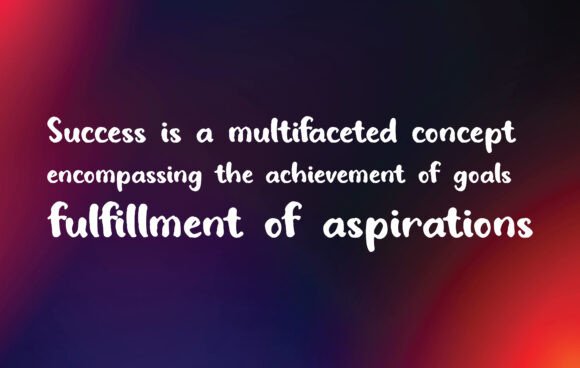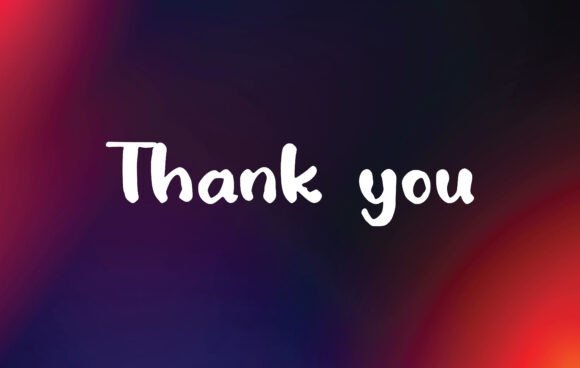
Introducing Daniel Font: Elevate Your Creative Projects with a Lovely Handwritten Style
Are you a designer, crafty enthusiast, or simply someone who appreciates beautiful typography? Look no further than Daniel Font, a stunning handwritten font that can take your creative ideas to new heights. With its unique charm and versatility, Daniel Font is the perfect choice for creating eye-catching logos, branding materials, and quotes that leave a lasting impression.
The Beauty of Daniel Font
Daniel Font is a lovely and beautiful handwritten font that boasts a distinctive character. Its elegant strokes, flowing lines, and subtle imperfections give it a personal touch that’s hard to find in digital fonts. Whether you’re working on a project that requires a touch of sophistication or a dash of playfulness, Daniel Font is sure to impress.
One of the best things about Daniel Font is its incredible versatility. This font can be used for a wide range of creative projects, from:
• Logos and branding: Create a memorable logo or brand identity that stands out from the crowd with Daniel Font’s unique and captivating style.
• Quotes and posters: Add a touch of elegance and sophistication to your quotes and posters with Daniel Font’s beautiful, handwritten script.
• Social media graphics: Elevate your social media presence with eye-catching graphics and typography that showcase your personality and brand.
• Packaging and labels: Give your products a personal touch with custom packaging and labels that feature Daniel Font’s charming style.
Why Choose Daniel Font?
So, what sets Daniel Font apart from other fonts? Here are just a few reasons why designers and crafters love this beautiful handwritten font:
• Unique character: Daniel Font has a distinctive personality that’s sure to make your projects stand out.
• High-quality design: This font is meticulously designed to ensure that every letter, word, and phrase looks beautiful and elegant.
• Easy to read: Despite its ornate style, Daniel Font is surprisingly easy to read, making it perfect for body text and captions.
• Flexible and adaptable: Daniel Font can be used for a wide range of projects, from digital designs to print materials.
Tips for Using Daniel Font
To get the most out of Daniel Font, here are a few tips to keep in mind:
• Experiment with different sizes: Daniel Font looks great in a variety of sizes, from large headings to smaller body text.
• Play with colors: This font looks stunning in a range of colors, from bold and bright to soft and pastel.
• Mix and match: Combine Daniel Font with other fonts and styles to create unique and eye-catching designs.
Daniel Font is a truly special font that has the potential to elevate your creative projects to new heights. With its unique character, versatility, and high-quality design, it’s the perfect choice for designers, crafters, and anyone who appreciates beautiful typography. Whether you’re working on a logo, branding materials, or simply a personal project, Daniel Font is sure to inspire and delight.